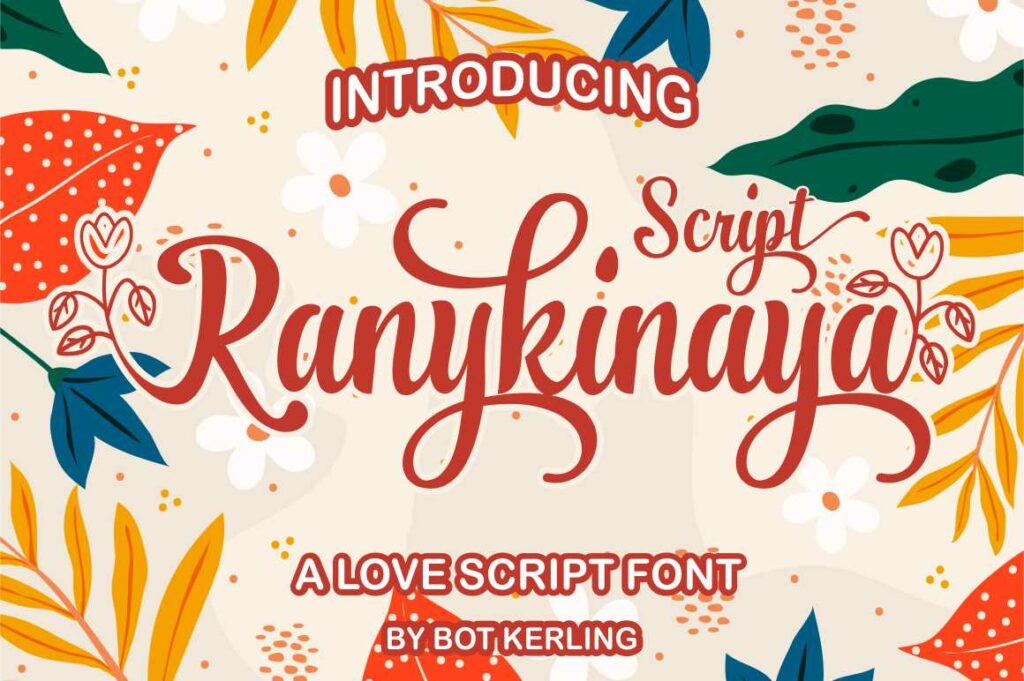
Ranykinaya Font
Ranykinaya Font is a unique blend of classic and modern fonts. imperfect tidal forces, such as dance letters, are smooth, clean and simple. Introducing my new font is perfect for use such as logos, wedding invitations, posts, t-shirts, letterheads, signage, labels, news, poster badges etc.
Ranykinaya Calligraphy Script Font